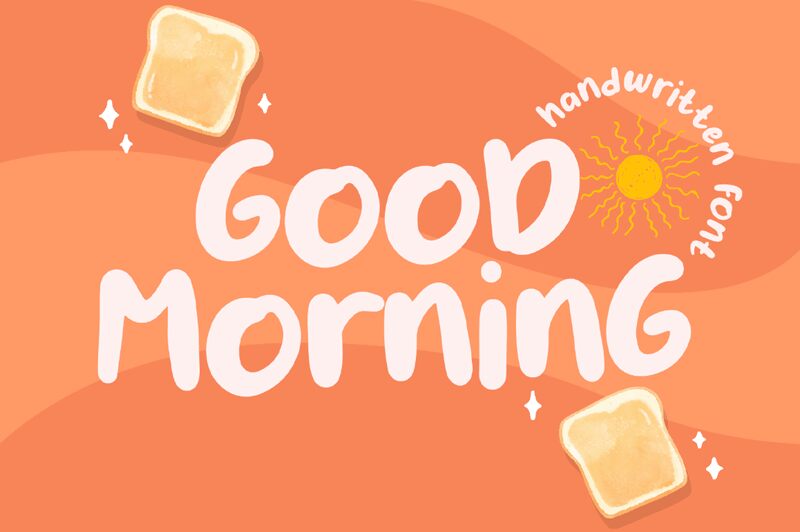
Good Morning, designed by Phantom Studio, is a bold display font that brings a playful and whimsical touch to any project. With its cartoon style, this font is perfect for children's books, animated movies, and toy packaging designs. Its bold weight adds emphasis and grabs attention, making it suitable for eye-catching logos, posters, and social media graphics. Good Morning's unique blend of creativity and readability allows it to shine in branding campaigns for cafes or breakfast-themed products. Let this vibrant font inject energy into your projects and greet your audience with a cheerful "Good Morning"!